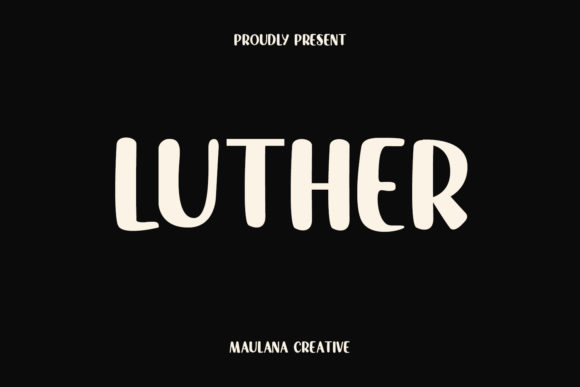
Step into the world of typography with Luther Font, a captivating display font that exudes professionalism and charm. This remarkable creation from Maulana Creative is meticulously designed to elevate your designs, whether it's for letterheads, titles, or stationery.
Luther Font mesmerizes with its unique and playful style, adding a touch of whimsy to your projects. Its distinctive character adds a personal touch, ensuring your designs stand out from the ordinary. Embrace the versatility of Luther Font and let your creativity soar.
With Luther Font, you hold the key to unlocking a world of endless possibilities. Its enchanting nature adds a dash of elegance to invitations, making them truly unforgettable. Whether it's a wedding, a birthday celebration, or a corporate event, Luther Font effortlessly sets the tone for a memorable occasion.
Unleash your inner artist and explore the boundless horizons of creativity with Luther Font. Its versatility knows no bounds, transforming your social media posts, branding materials, and marketing campaigns into masterpieces. Captivate your audience with visually stunning designs that leave a lasting impression.
But Luther Font's allure extends beyond aesthetics. Its masterful construction ensures seamless readability, making it a joy to use. Experience the harmony of form and function as your words dance across the page, captivating your readers with their clarity and elegance.
Join the ranks of discerning designers who have succumbed to the charm of Luther Font. Let your imagination run wild as you craft captivating designs that resonate with your audience. Embrace the power of typography and transform your creative vision into reality with Luther Font, the ultimate font for professional letters.